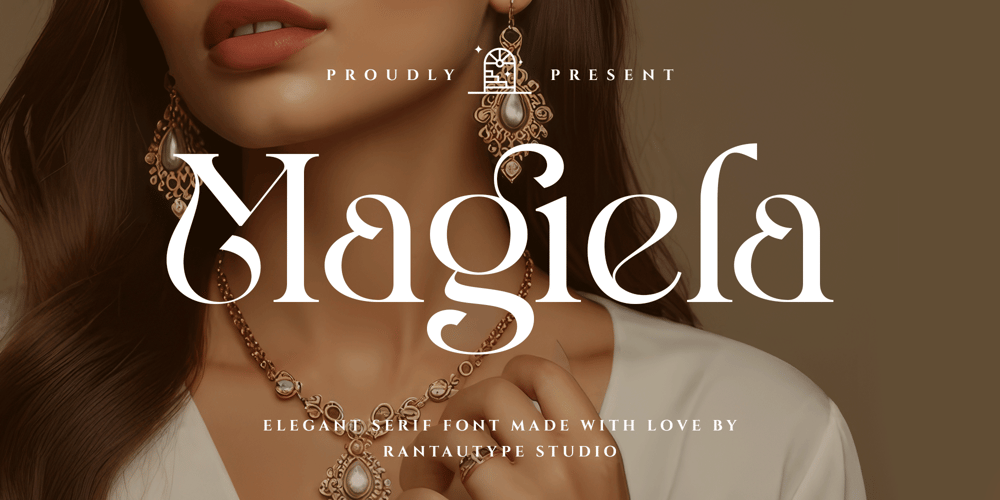
Magiela Font Family was designed by Yudi Pratama Chandra and published by RantauType. Magiela contains 2 styles and family package options. Magiela is elegant serif font come with blend of classic elegance and memoriable style. Magiela come with alternate and ligature, you can mix and max to make your design project stand out.Magiela is a beautiful choice for any creative endeavor, creating elegant, modern, chic, lifestyle design such as logotype, title, cover, branding, invitations, wedding designs, display and magazine, social media posts, advertisements, printed quotes, product packaging, corporate brand, product designs, labels, photography, watermarks, special events and any other project with elegant touch.What you have: Standart Glyphs Numberial and Functional Ligature and alternate Works on PC & Mac Simple installations Accessible in Adobe Illustrator, Adobe Photoshop, Adobe InDesign, even work on Microsoft Word. Fonts include multilingual support for: Afrikaans, Albanian, Basque, Bemba, Bena, Breton, Catalan, Chiga, Cornish, Danish, Dutch, English, Estonian, Filipino, Finnish, French, Galician, German, Icelandic, Indonesian, Irish, Italian, Kinyarwanda, Luxembourgish, North, Norwegian, Portuguese, Romansh, Rombo, Rundi, Scottish, Gaelic, Sena, Shambala, Shona, Soga, Somali, Spanish, Swahili, Swedish, Swiss, German.Thank you for your purchase!Hope you enjoy with our font!